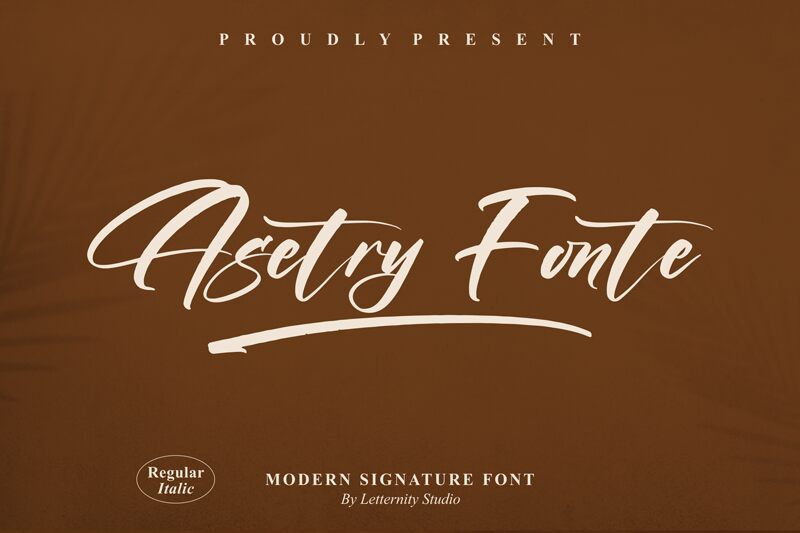
Asetry Fonte
Asetry Fonte by Letterena Studios is a handwritten font that exudes elegance and personal touch, crafted with a sense of individuality. Its fluid strokes and slightly varied thickness evoke the charm of traditional calligraphy, while the gentle slant adds a dynamic rhythm to each character. The font's aesthetic strikes a balance between sophistication and accessibility, making it both inviting and expressive.
Ideal for design projects that require an intimate yet polished feel, Asetry Fonte shines in applications such as wedding invitations, branding materials, greeting cards, and any setting where the human touch is celebrated. Its graceful nature ensures that it stands out in print or on screen, adding a bespoke essence to every word it forms.